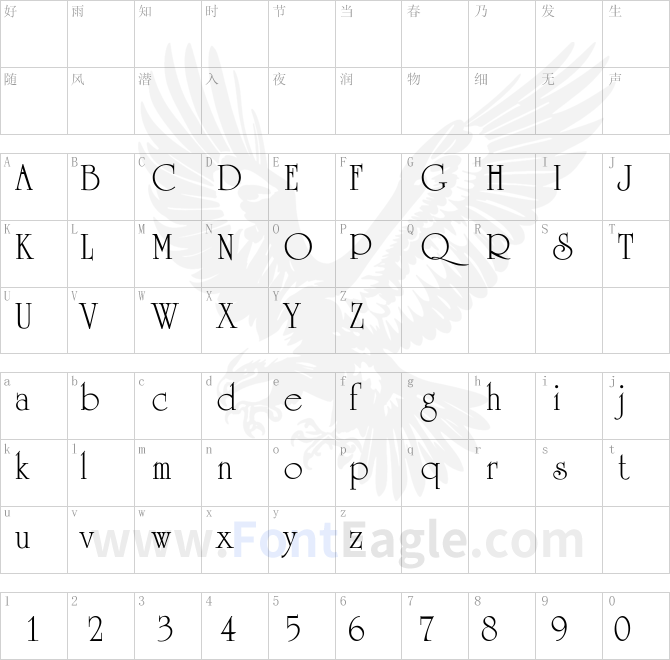
University-copy-1- is a great font, widely used in graphic design, single-page menu design, poster design and other fields, and is deeply loved by designers.University-copy-1- download.